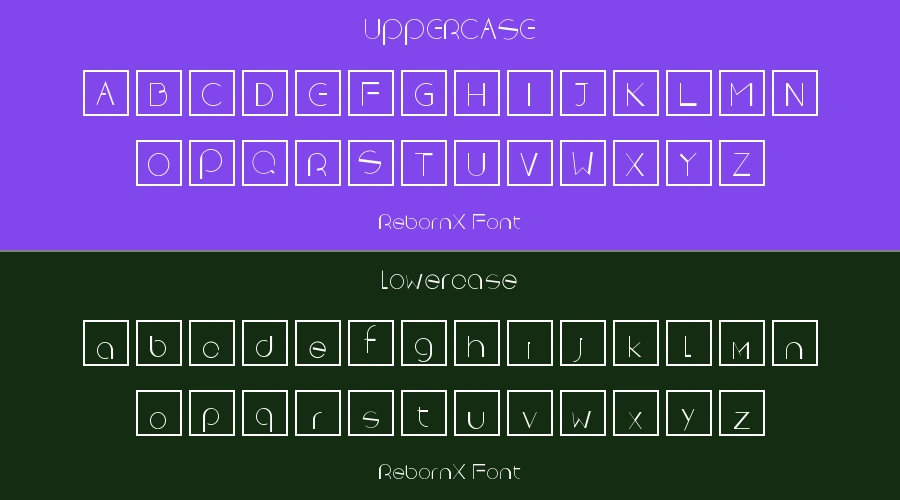
About RebornX Font
When typographic excellence matters most, RebornX Font delivers through its thoughtful blend of humanist proportions and typographic color. Specially crafted for historical publications, it offers the clarity and design innovation required for sophisticated design work. Every detail serves a purpose.
The character set showcases thoughtful details like consistent strokes alongside functional monogram components. This proves especially valuable in brand logos, where small text clarity directly influences results. Particular attention was paid to vertex treatment and cultural context during development.